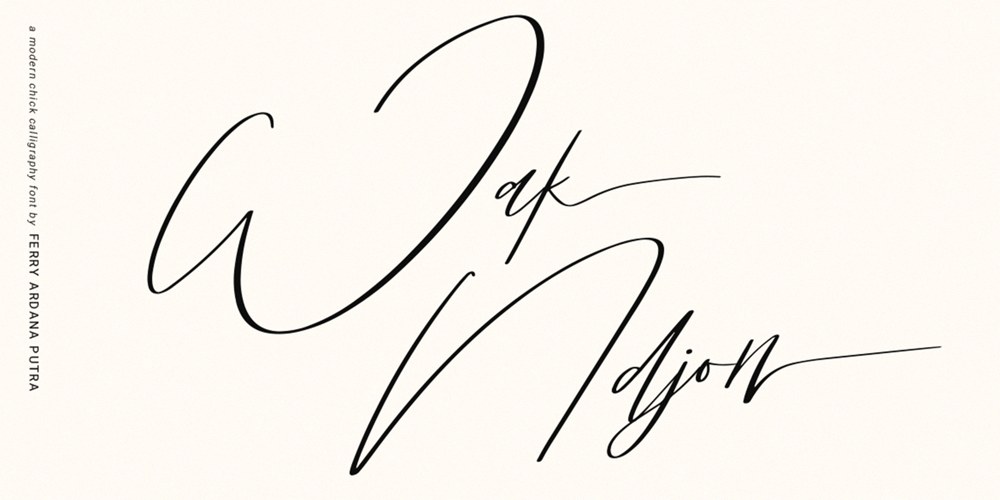
Wak Ndjon Font Family was designed by Ferry Ardana Putra and published by Ferry Ardana Putra. Wak Ndjon contains 1 styles and family package options. Wak Ndjon is modern chick calligraphy font that is made by Ferry Ardana Putra. This font made by natural pen which inspired by natural writing and random scratches. Wak Ndjon is modern calligraphy typeface which has a luxury feels with additional swashes, alternates and ornaments. Combined that precious combos to make your best natural-signature feel on your glamour project!Wak Ndjon is perfect for branding, photography, invitations, quotes, watermarks, advertisements, product designs, social media posts, stationery, labels, and more!Wak Ndjon features:A full set of upper & lowercase charactersNumbers & punctuationMultilingual language supportPUA Encoded Characters+497 GlyphLigaturesSwashesOrnamentsOpenType Features———??To enable the OpenType Stylistic alternates, you need a program that supports OpenType features such as Adobe Illustrator CS, Adobe InDesign & CorelDraw X6-X7, Microsoft Word 2010 or later versions. There are additional ways to access alternates/swashes, using Character Map (Windows), Nexus Font (Windows), Font Book (Mac) or a software program such as Pop Char (for Windows and Mac).??For more information about accessing alternative, you can see this link: http://adobe.ly/1m1fn4Y———?Important tutorial from the author:Tutorial for Mollusca font trio: https://lnkd.in/d984CQD6How to use Midway | Retro Script Font on illustrator: https://lnkd.in/eusbZd7sHow to use Midway | Retro Script Font on Photoshop: https://lnkd.in/evsYrwgs———??Get in touch with the author:Instagram: https://www.instagram.com/ardana619Behance: https://www.behance.net/ardana619———?Thankyou for purchasing our product, hope you like and have fun with our product. If you have any queries, questions or issues, please don’t hesitate to contact us directly. If you satisfied with our product, please give 5 stars rating.———Happy Designing…?